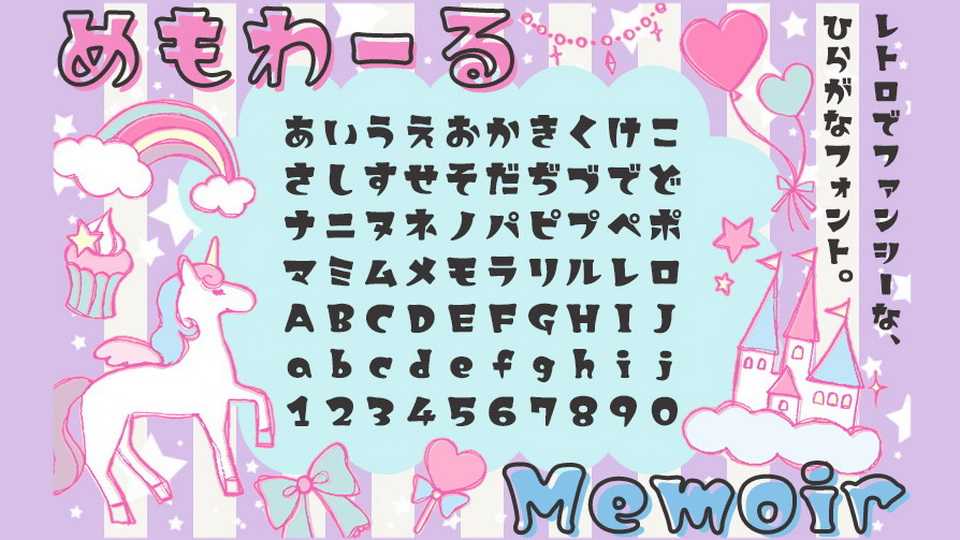
Download Memoir typeface, a high-impact retro-pop hiragana font family in three styles created with the image of fancy miscellaneous goods. But it looks good with words like “hoppy”.
Designer: MODI factory